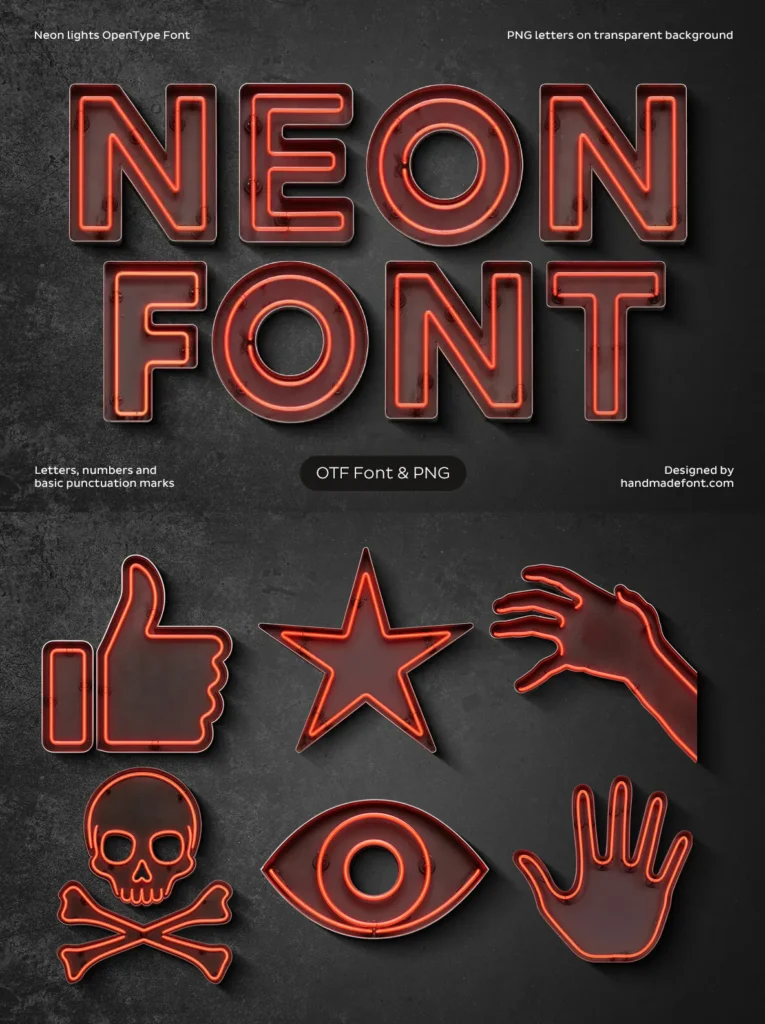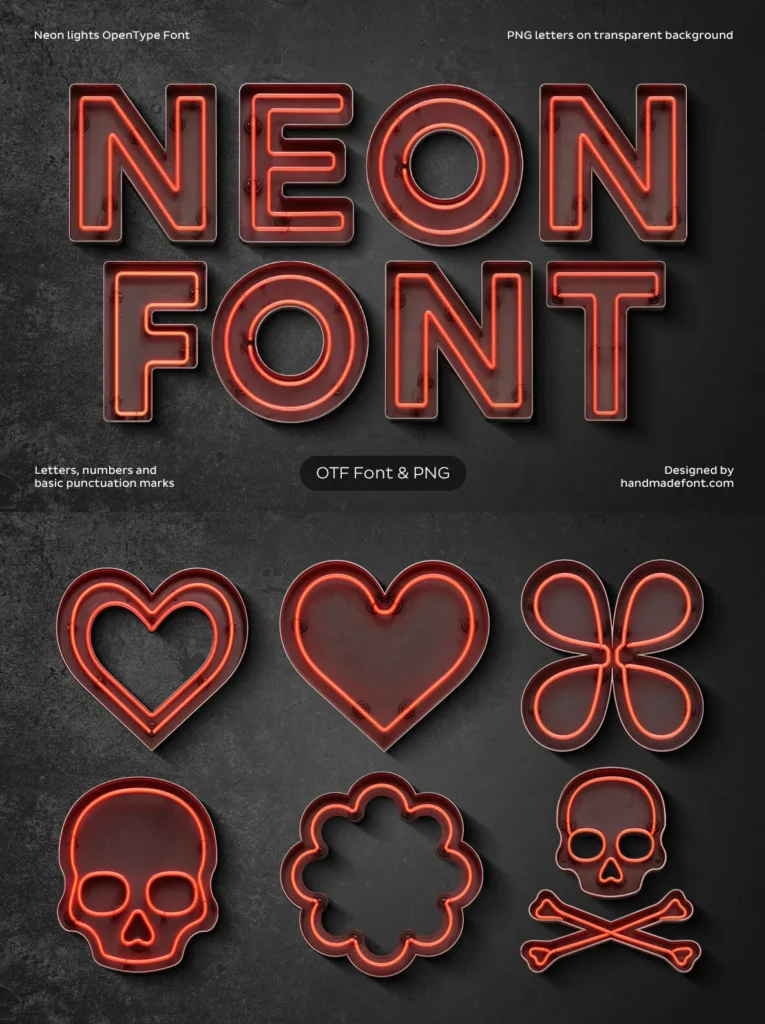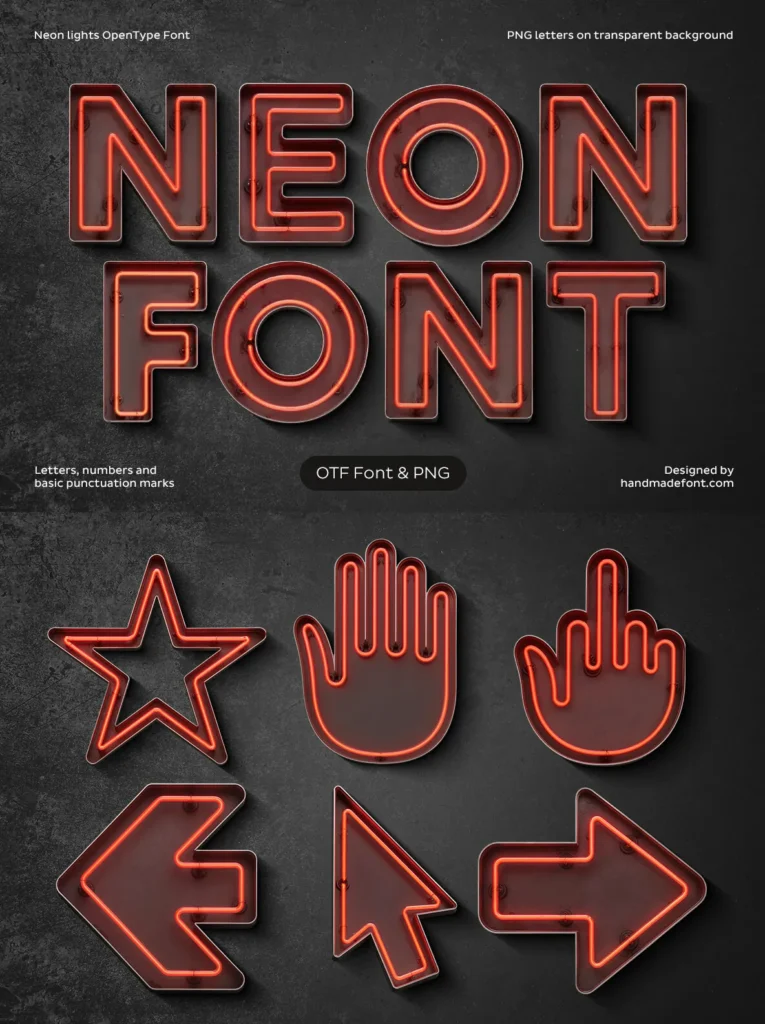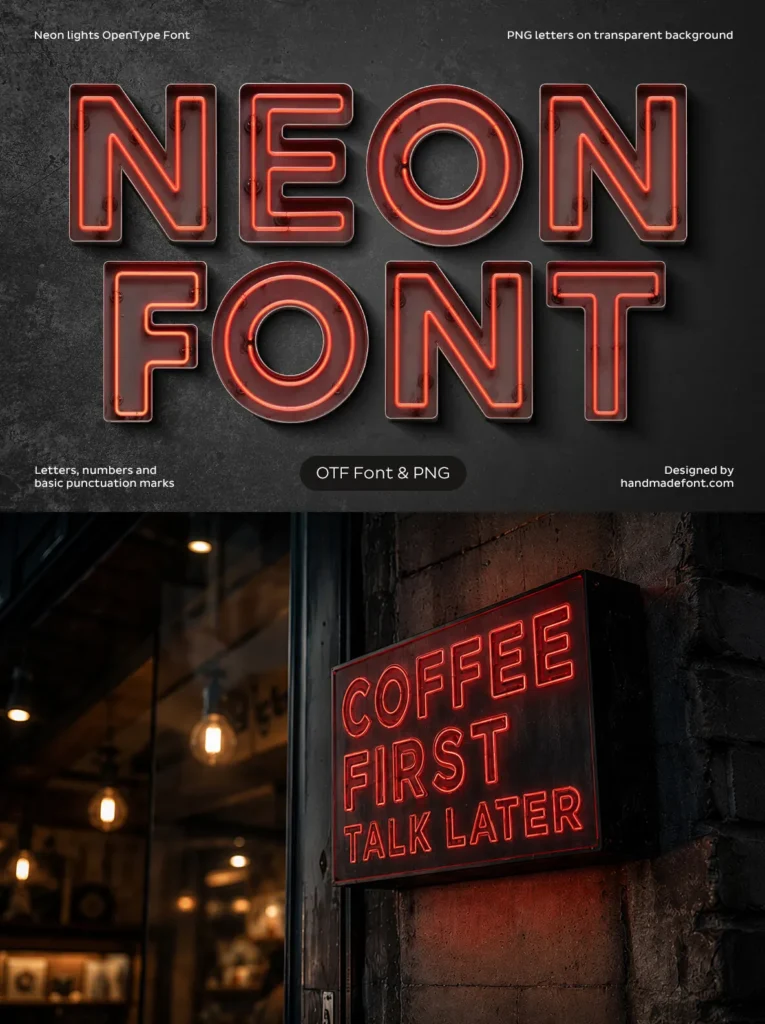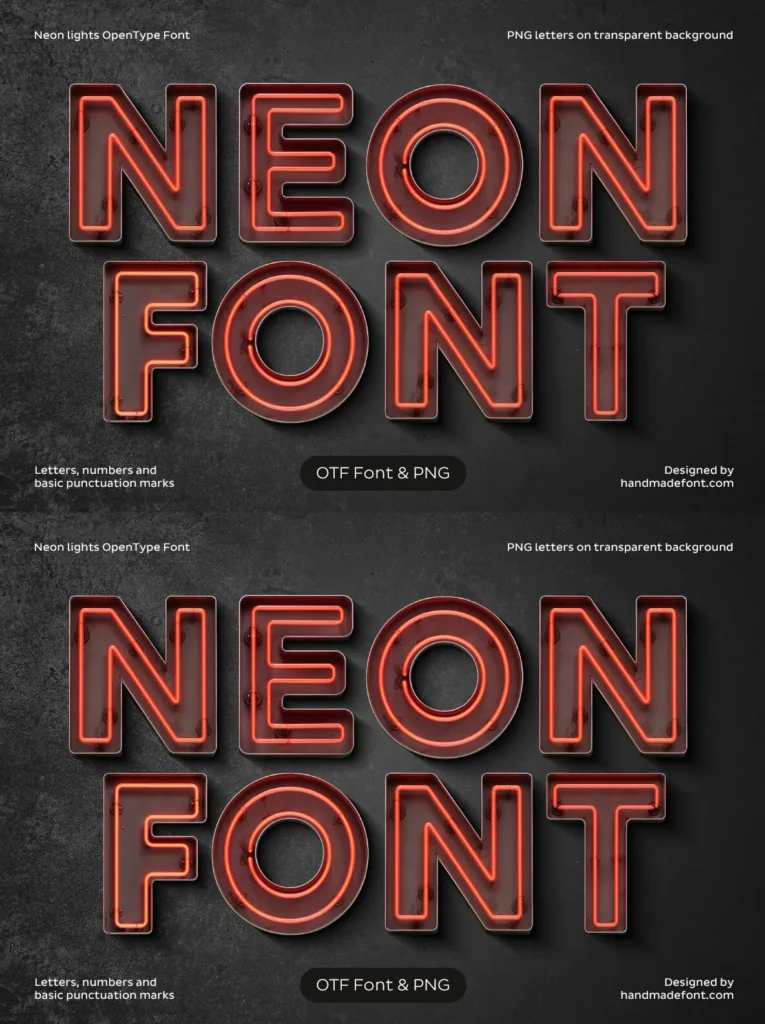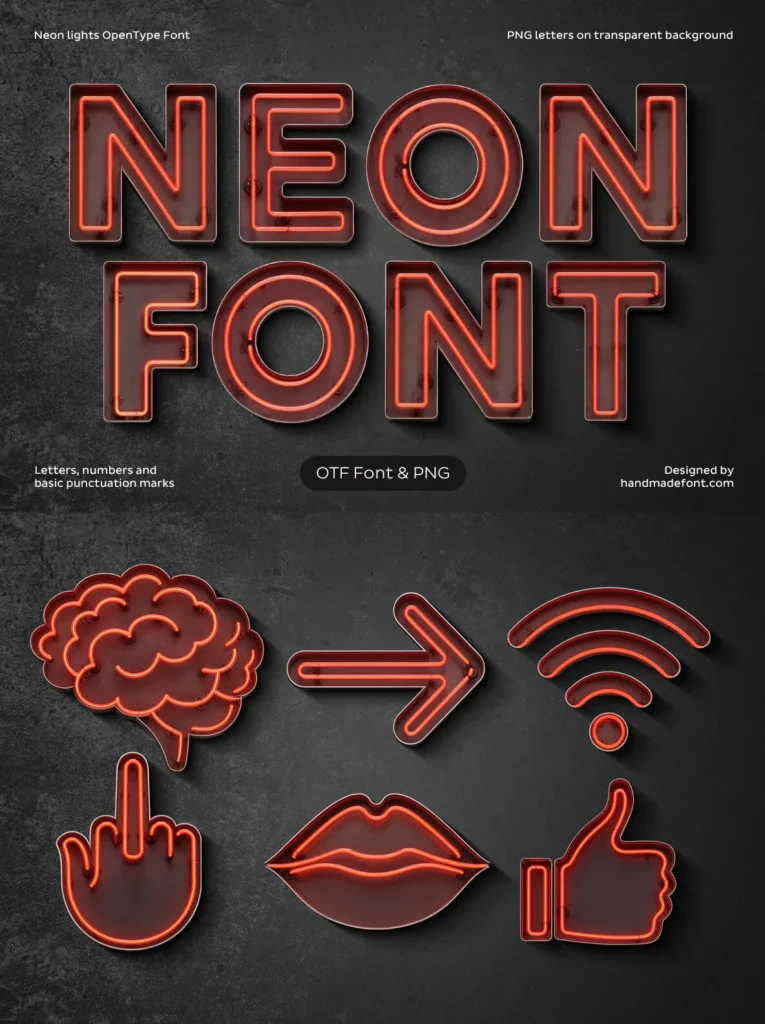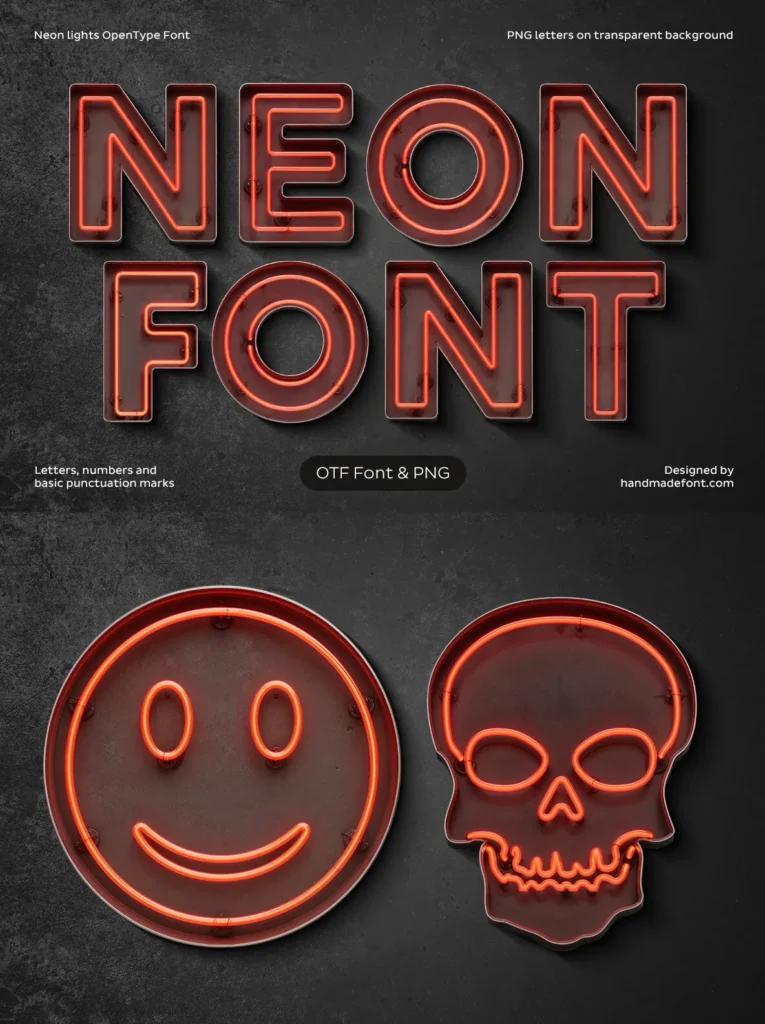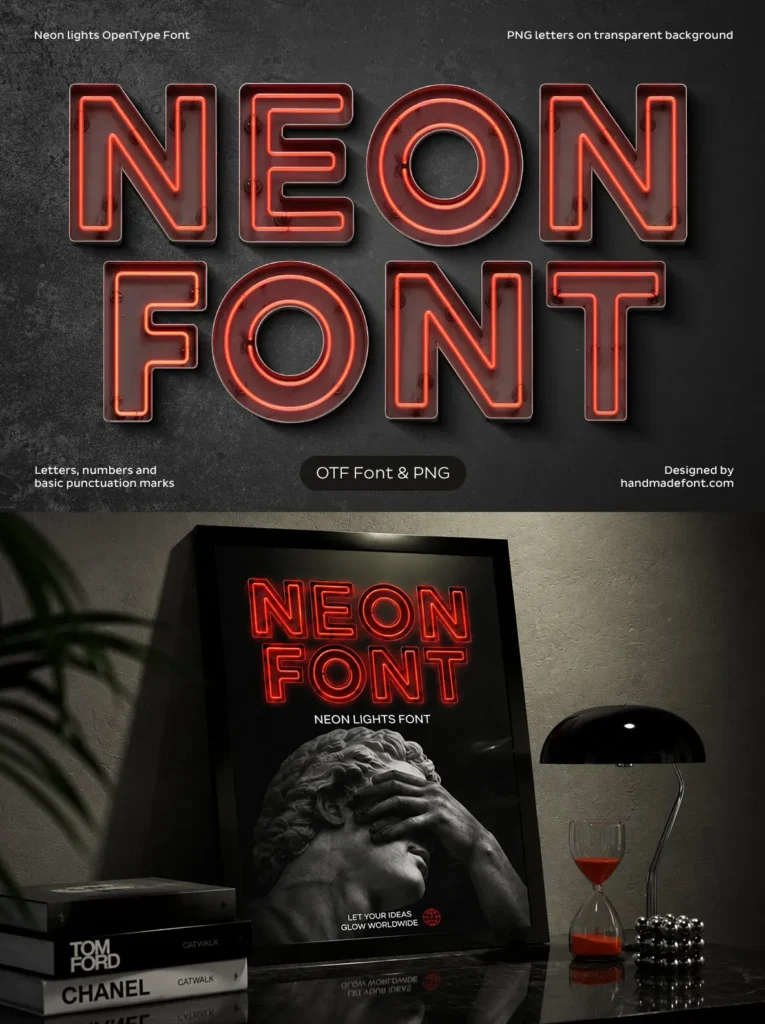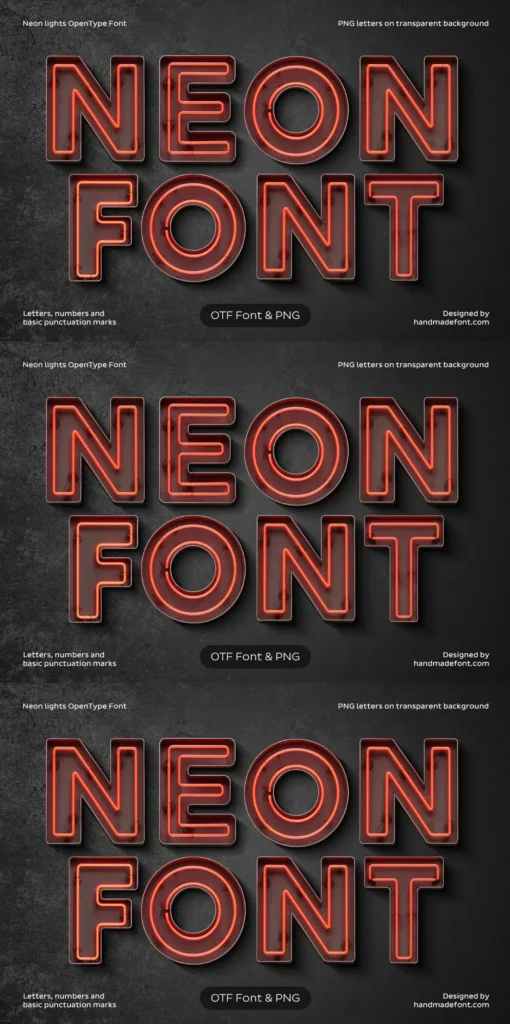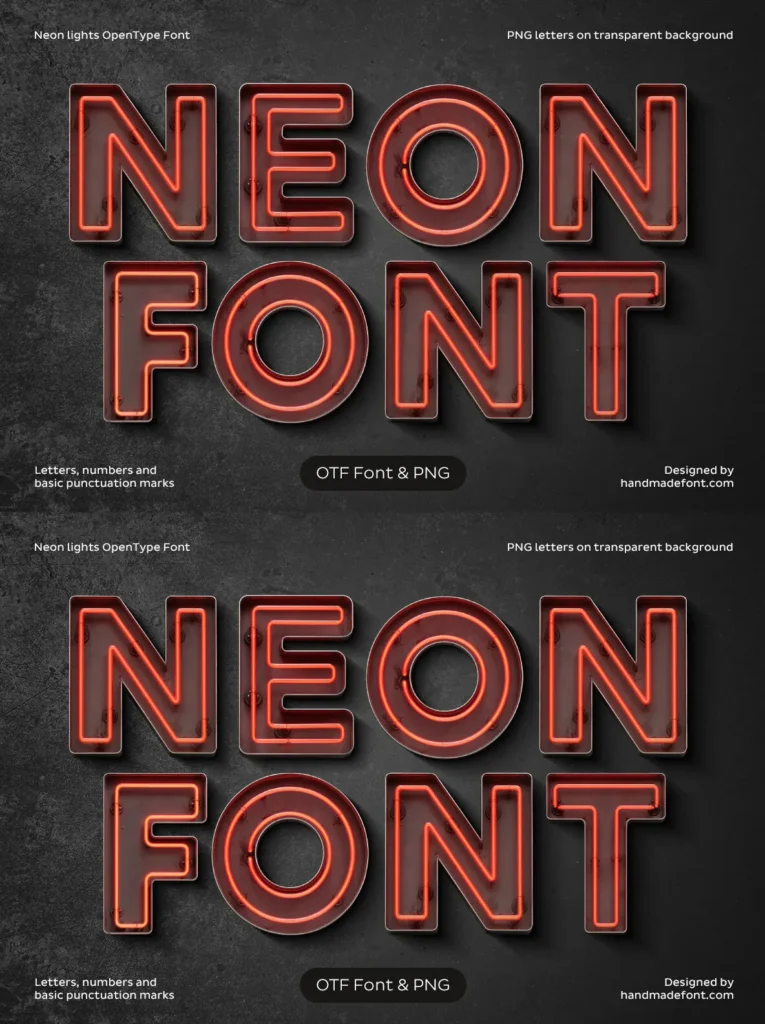
Neon Lights Font — Night Sign Drama
Neon Lights Font is a bold, atmospheric typeface drawn from classic vintage neon signage and contemporary urban design. Each character recreates the authentic look of glowing neon tubes mounted inside metal channel letters, giving the letterforms a realistic illuminated effect, rich depth, and strong visual impact.
Characters Included
Letters: A B C D E F G H I J K L M N O P Q R S T U V W X Y Z
Numbers: 0 1 2 3 4 5 6 7 8 9
Others: ! ? – . ‘ $ € % &